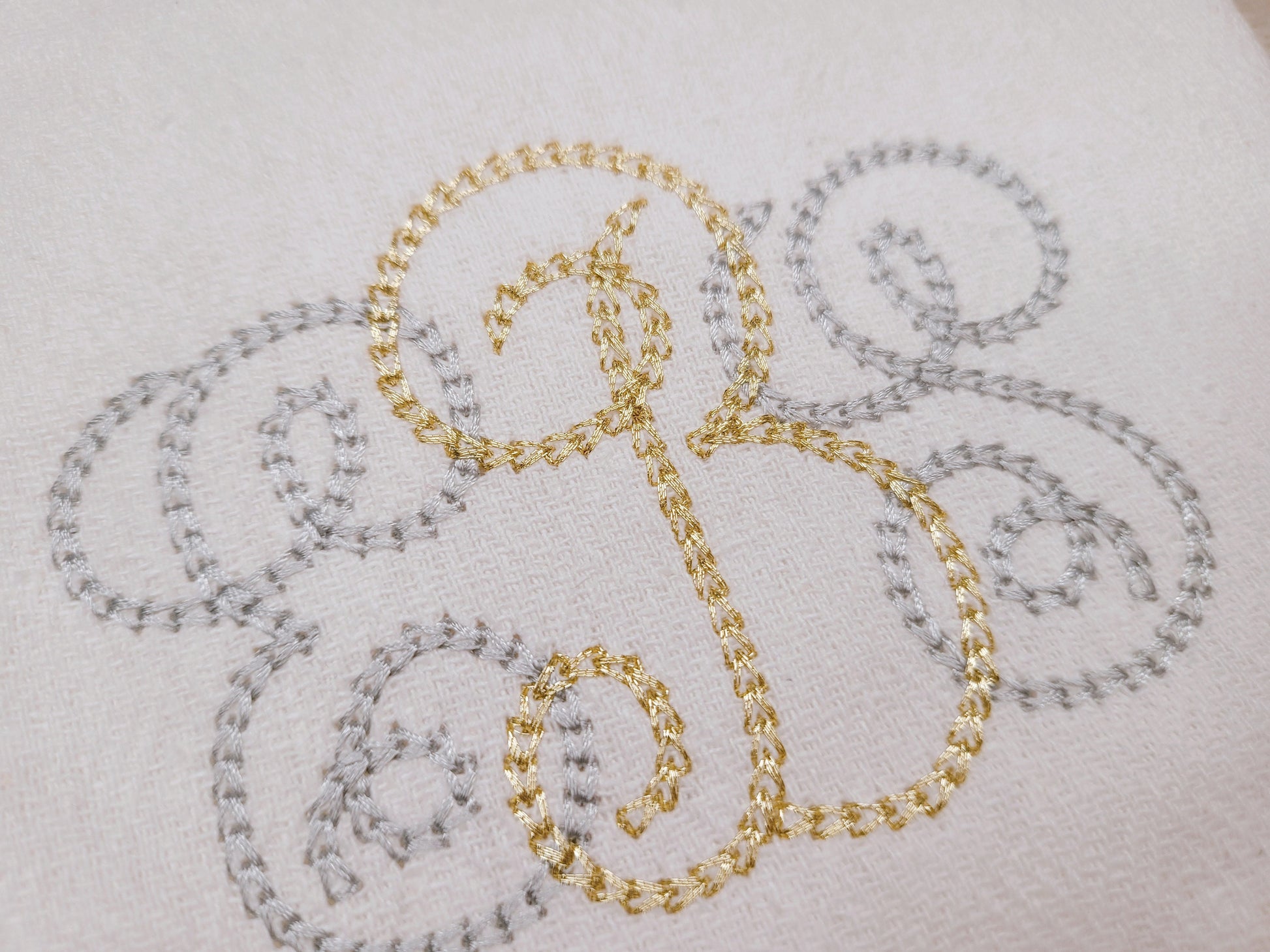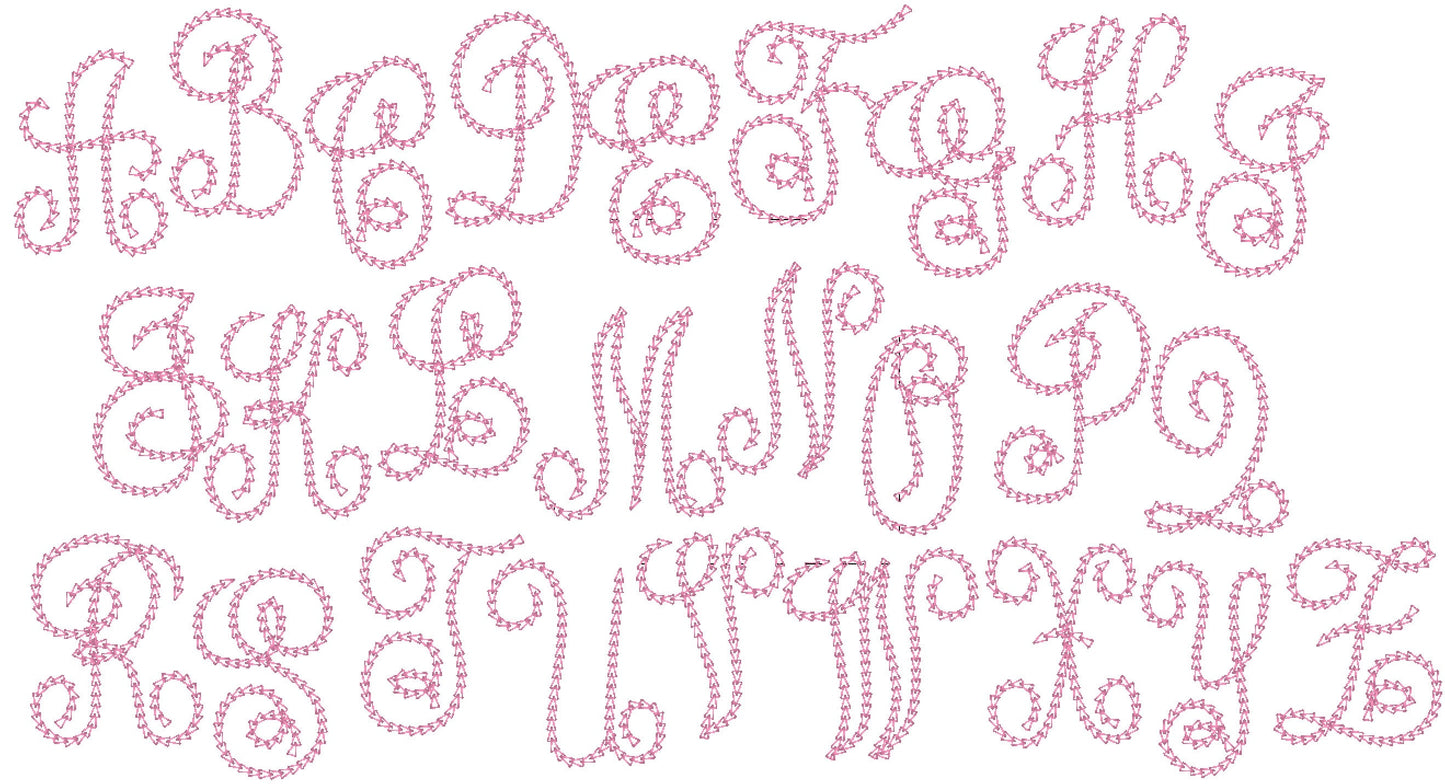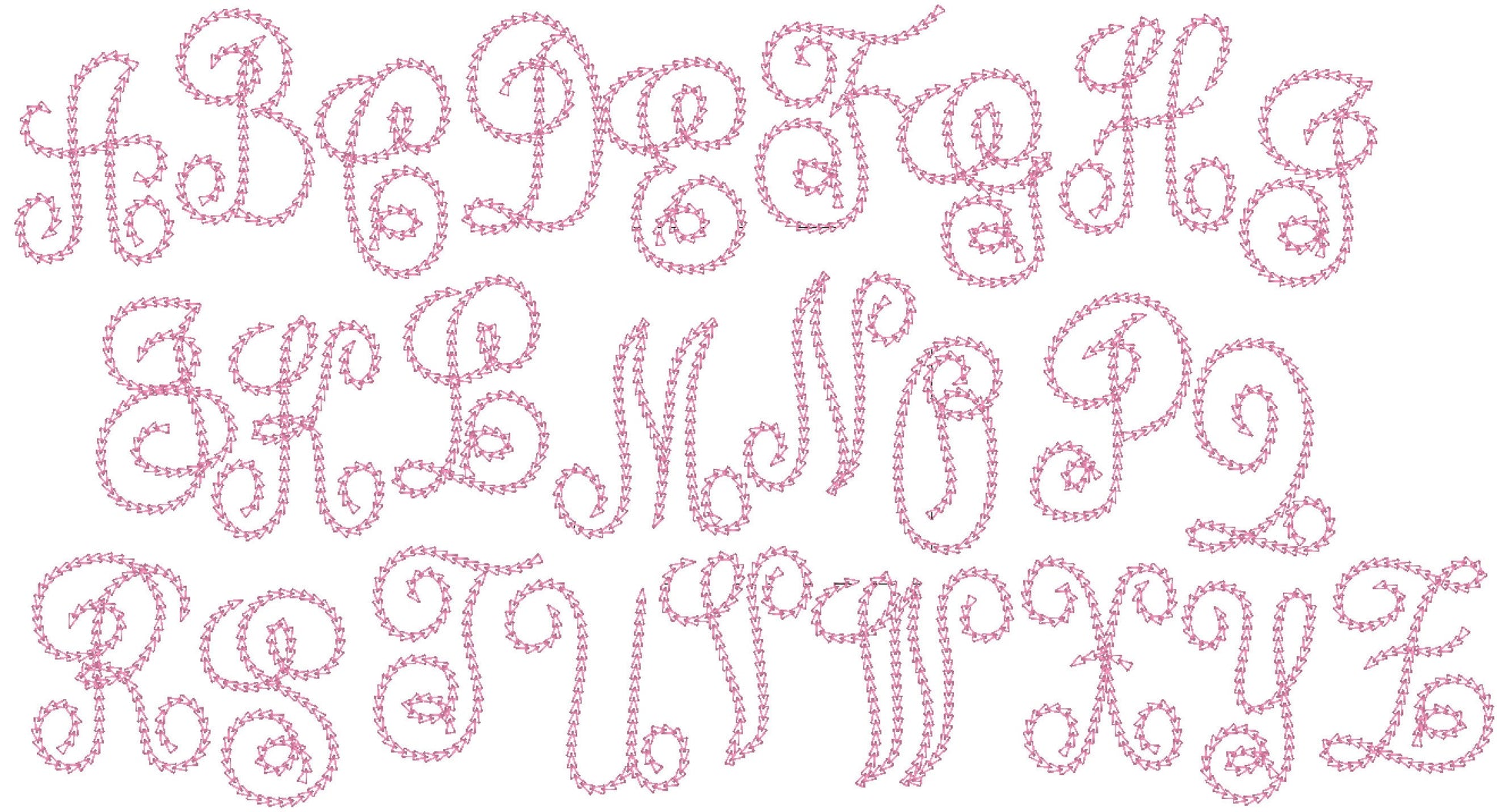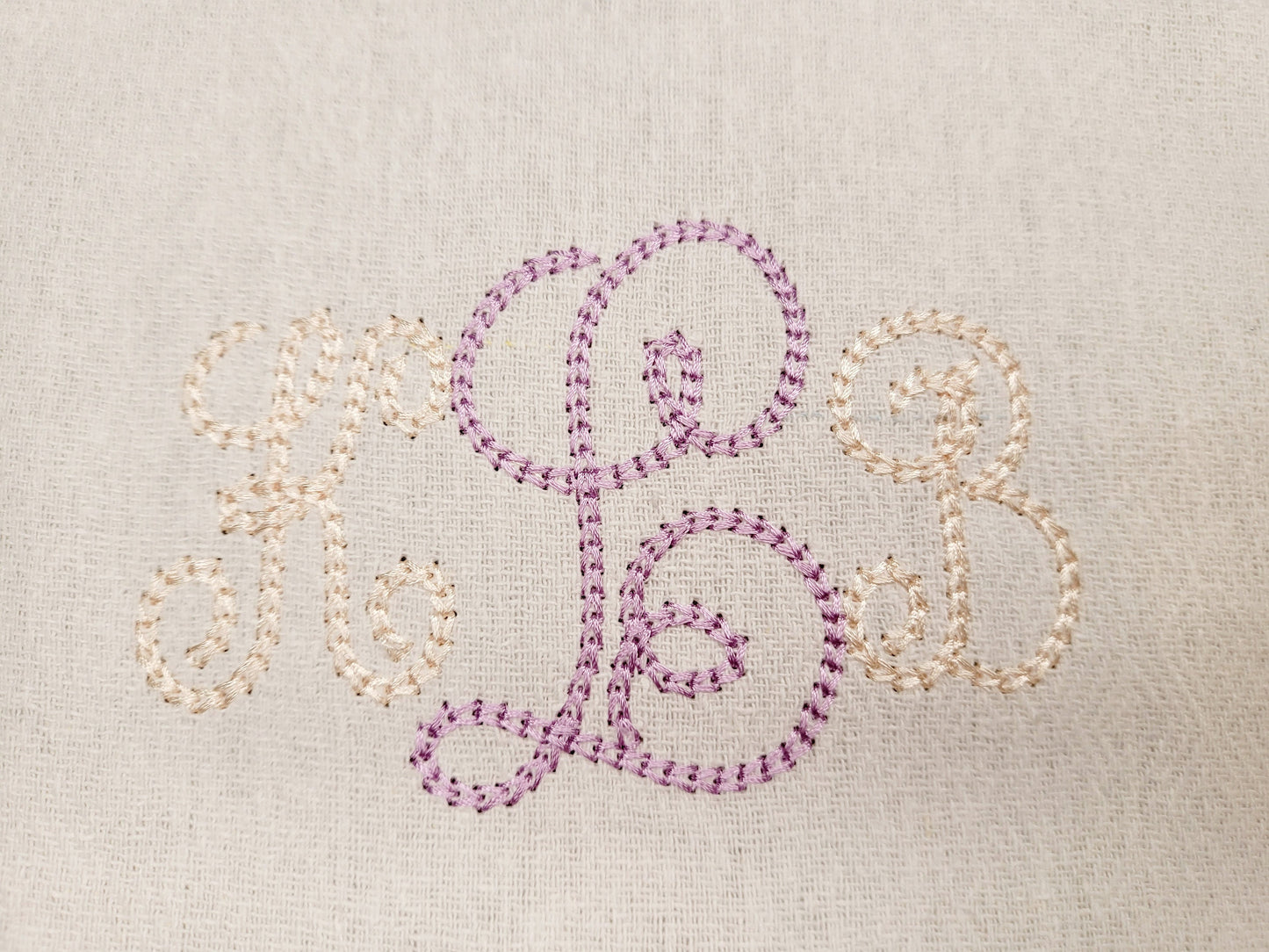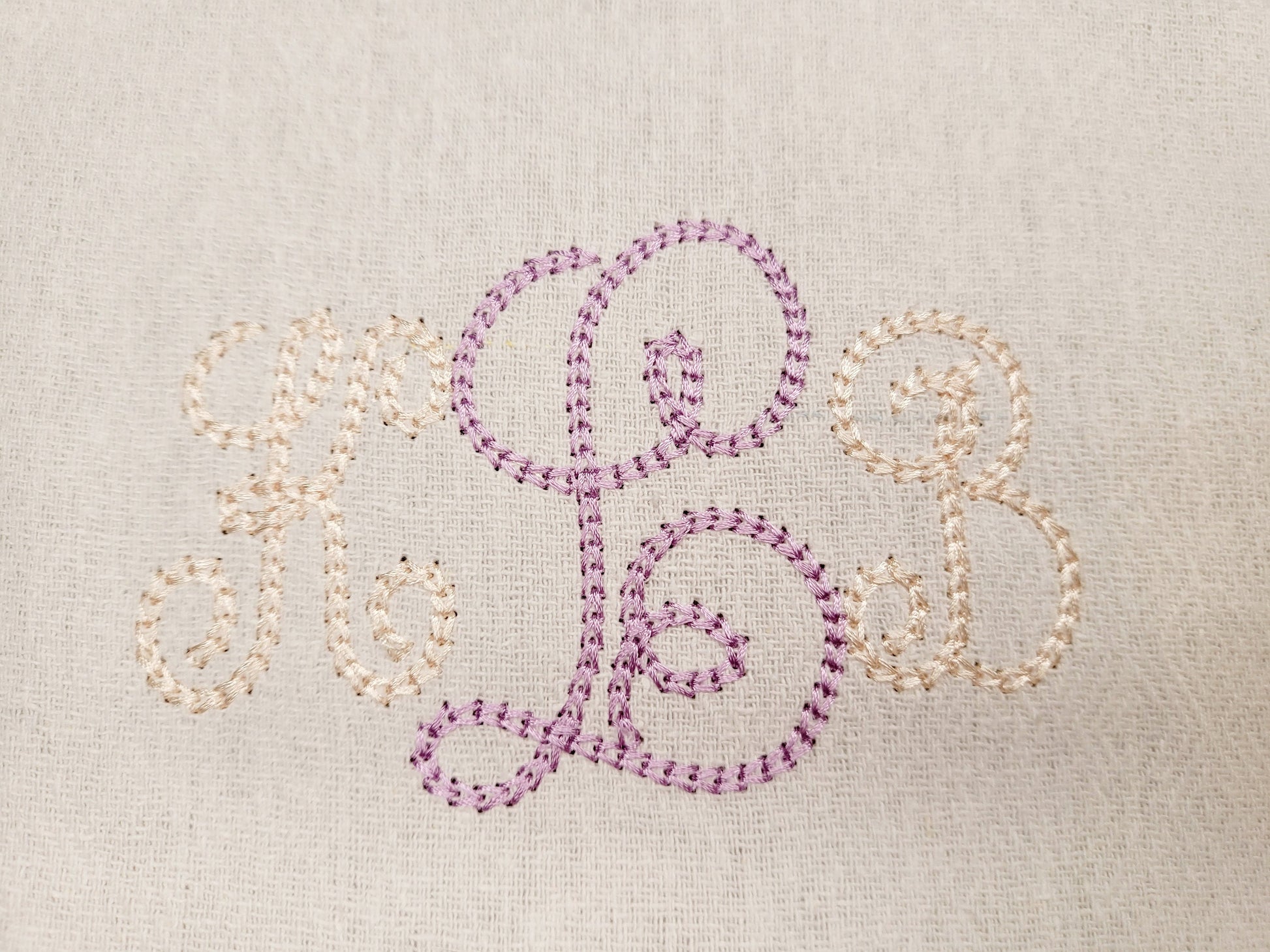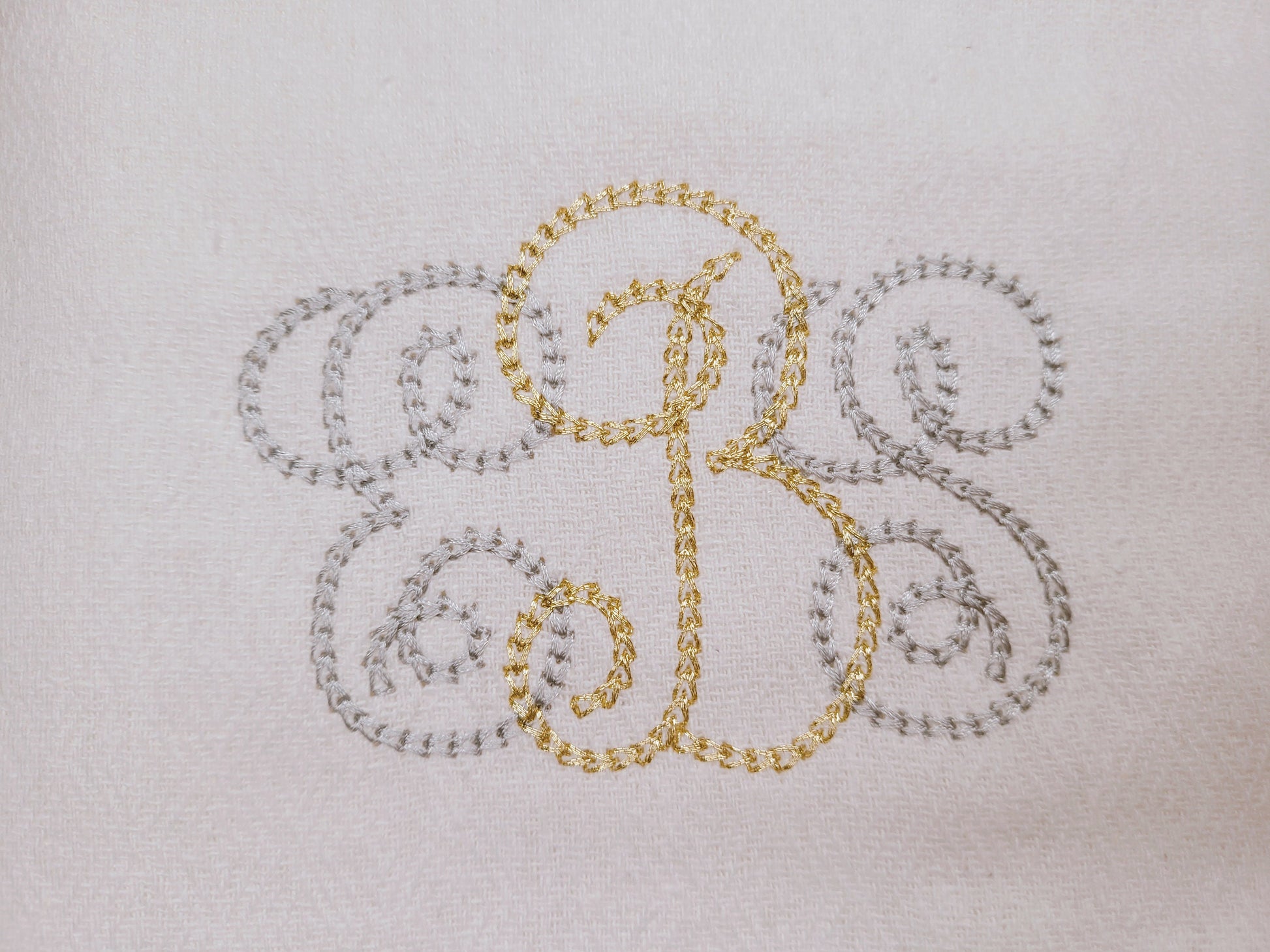
Or click to open the linkUnique new and awesome light chain stitch Circle Monogram Font assorted sizes machine embroidery designs wedding gift idea for hoop 4x4, BX
This set includes 78 uppercase letters for a complete 3 letter monogram in chain stitch.